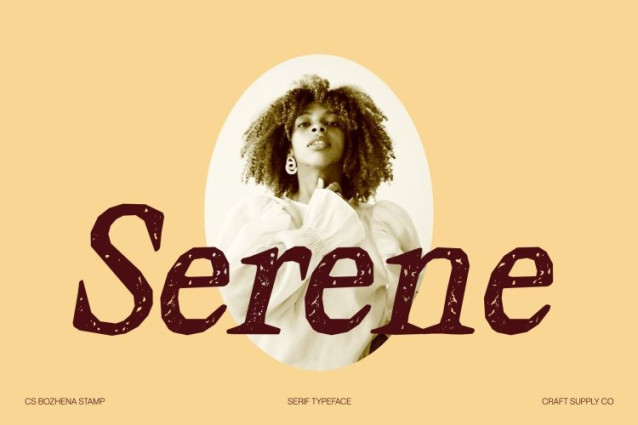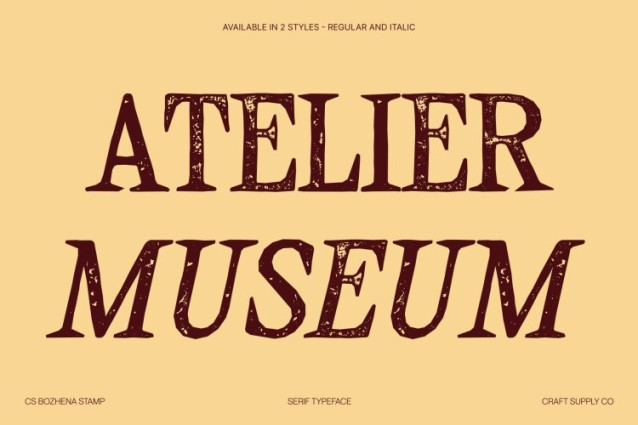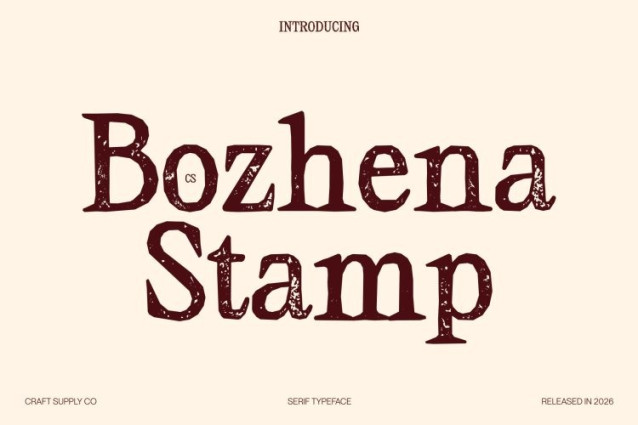
CS Bozhena Stamp Font
CS Bozhena Stamp Font – This refines its contemporary serif structure with a subtle stamped texture, adding depth and artisanal character to its timeless form. The sharp serifs, balanced proportions, and polished letterforms remain strong and authoritative, now enhanced with gentle ink variations and softly distressed edges that introduce warmth without compromising sophistication.
Clean Professionalism with Organic Detail
Designed for clarity and readability, preserves its structured, professional appearance while gaining a tactile nuance. The smooth contrast and precise construction are complemented by a lightly weathered finish, creating a refined balance between corporate polish and handcrafted authenticity.
Sophisticated Style with Added Dimension
The graceful curves and sleek serif details become even more expressive through the stamped effect. This subtle texture enriches its luxurious presence, making it feel exclusive and thoughtfully crafted ideal for fashion branding, premium packaging, elegant advertisements, and upscale publications.
Versatile for Distinguished Design
From editorial layouts and book covers to logos, invitations, and corporate identities, adapts seamlessly across print and digital platforms. Its blend of modern elegance and textured depth ensures a cohesive, high-end visual identity that feels confident, timeless, and beautifully elevated.